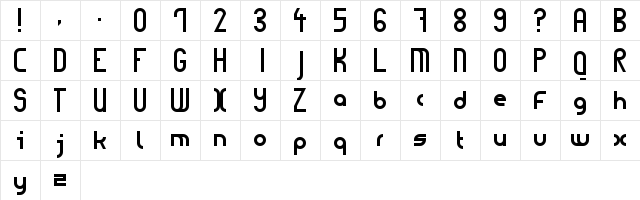
WLM Future Round Regular
| Designer | Wolf Lambert |
Design Context for WLM Future Round Typeface
WLM Future Round has a distinctly futuristic character, with geometric precision and clean angles that feel at home in technology, gaming, and sci-fi contexts.